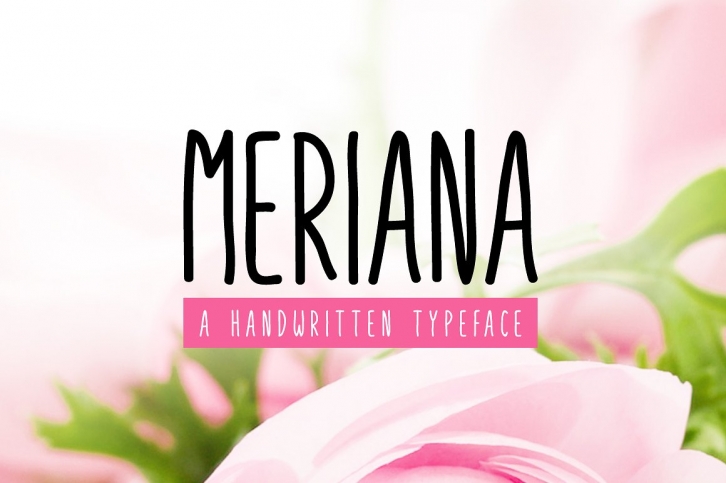
Meriana is a sweet, handwritten font. It’s optimized to be legible and perfectly suited for playful projects such as marketing, branding or as a key element in decorative designs.